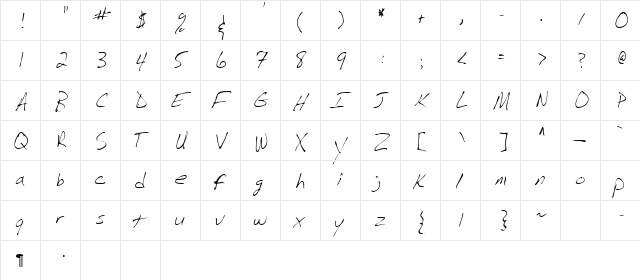
Eddie Regular
Design Context for Eddie Typeface
Eddie is a composed and adaptable typeface that performs quietly and consistently across a wide range of design contexts.